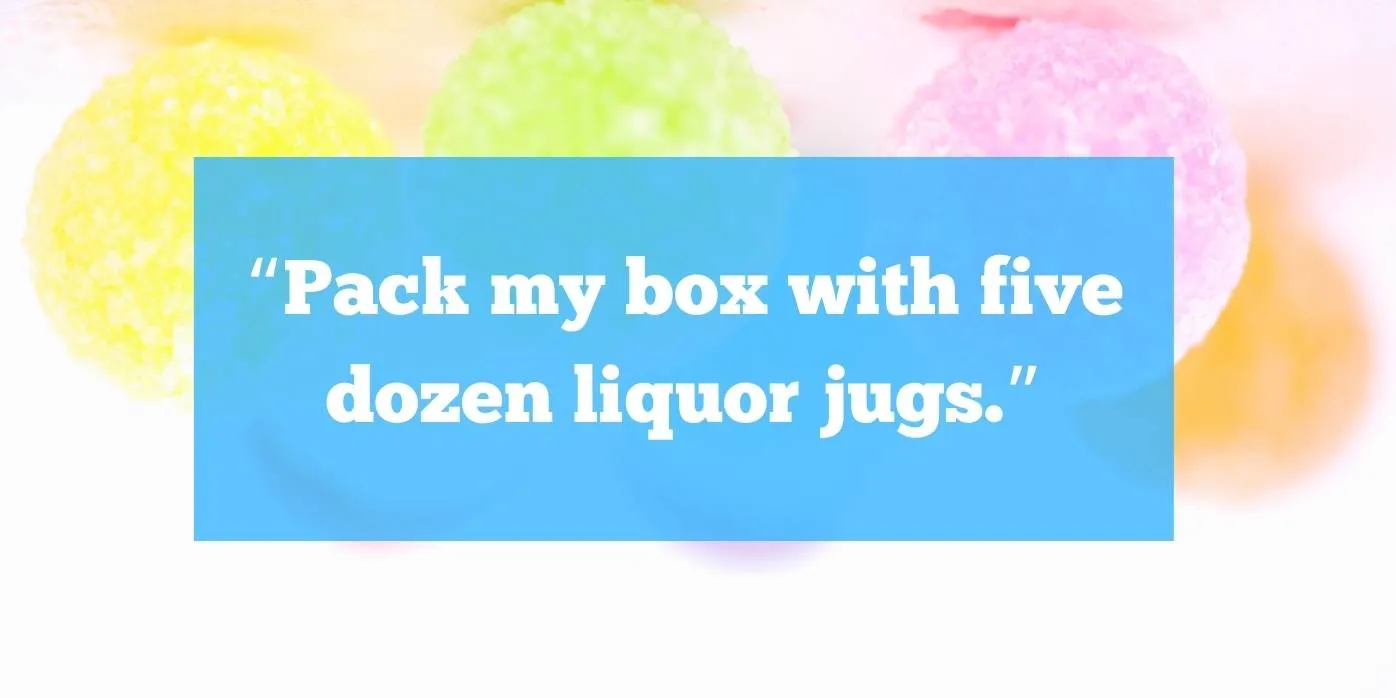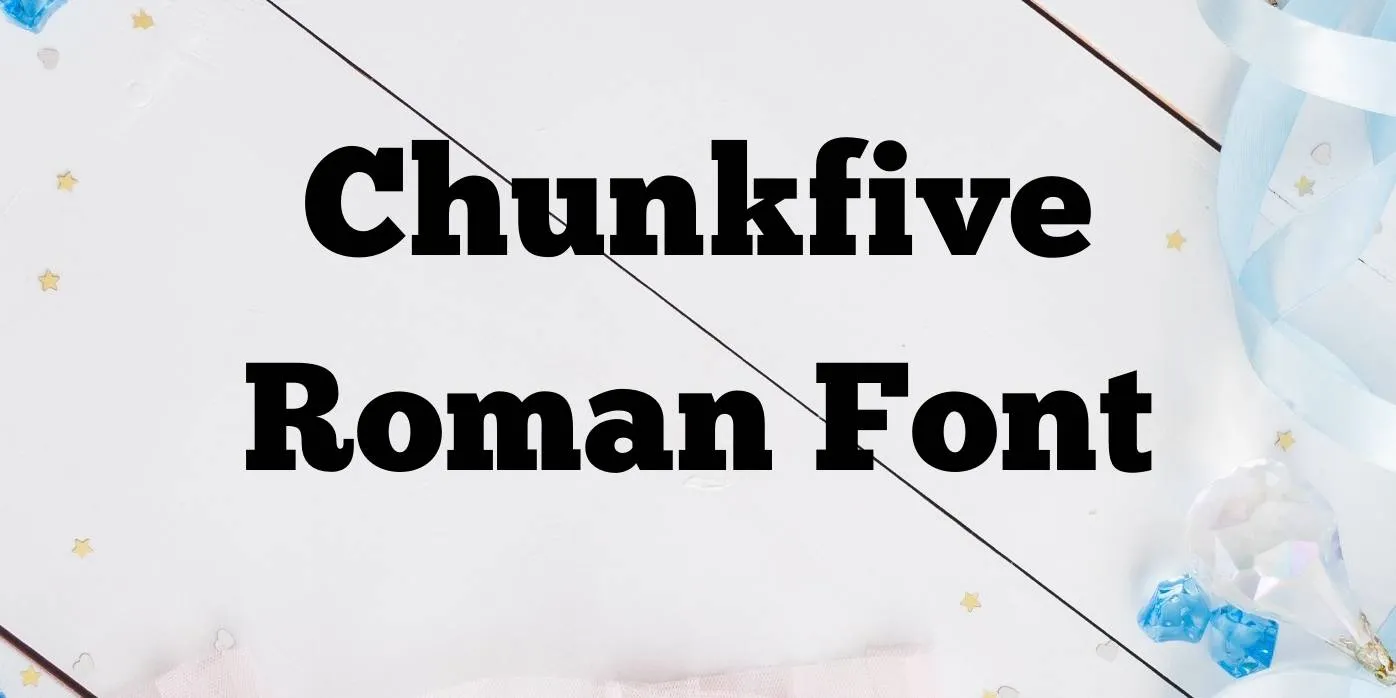
Chunk Five Roman Font
We introduce a classic and awesome typeface that goes by the name Chunk five Roman Font. This amazing typeface was designed by The League of Moveable Type. This staggering typeface consists of two famous styles and also more than 164 unique characters. It belongs to the Slab Serif typeface.
This tremendous typeface comes in more than 327 popular Glyphs. Some most popular characters are numerals, uppercase, and lowercase, mathematical operators, and a lot more. Because of its soo much support to different languages this typeface is used for different designs all over the world. For many interesting designs, you will have to use its similar Caecilia Font.